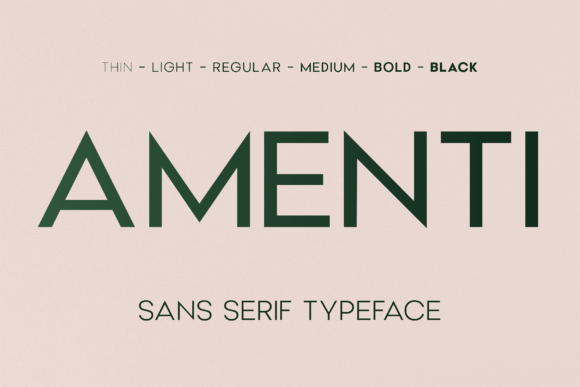
I still remember the countless hours I spent on a branding project for a luxury client, searching for the ideal font to capture their sophisticated essence. The design brief required something modern, elegant, and timeless – a font that would elevate their brand to new heights. After scouring through numerous font libraries, I stumbled upon Amenti, and it was love at first sight! ✨
Introducing Amenti: The Epitome of Modernity and Sophistication
Amenti is a stunning font that embodies the perfect blend of modernity and sophistication. Its clean lines and graceful curves make it a sight to behold. With six different weights to choose from, each as breathtaking as the last, Amenti is an excellent choice for designers, crafters, and creative hobbyists looking to add a touch of elegance to their projects.
An Honest Review of Amenti
• ✨ Timeless beauty and stylish elegance
• ✅ Six different weights to suit various design needs
• ✅ Clean lines and graceful curves for a sophisticated look
• ✅ Versatile and adaptable for various design projects
While Amenti is an exceptional font, there are a few minor quirks to be aware of: 🤔
• ⚠️ Limited availability of certain OpenType features in some software
• ⚠️ May require additional setup for optimal use in certain design platforms
The Designer Behind Amenti: A Backstory
Amenti was designed by a renowned type designer who aimed to create a font that would exude modernity and sophistication. The designer’s inspiration came from various sources, including art deco and minimalist design. The result is a font that is both timeless and stylish.
Q: What is Amenti’s primary use?
A: Amenti is a versatile font suitable for various design projects, including branding, websites, and printed designs.
Q: Is Amenti suitable for body text?
A: While Amenti is an elegant font, it’s best suited for headlines and titles. For body text, consider using a font with better readability.